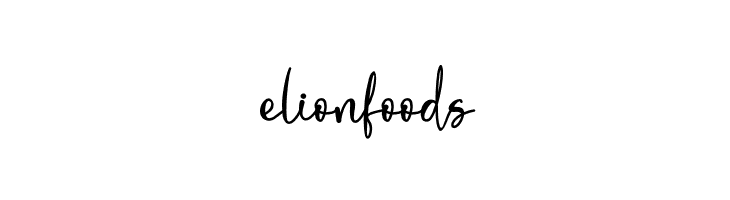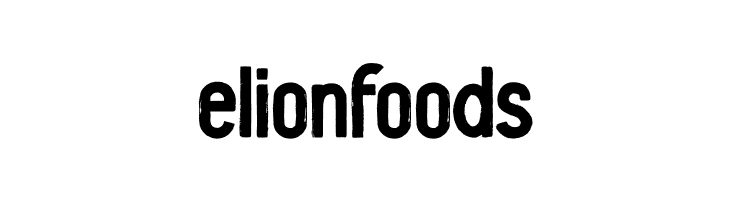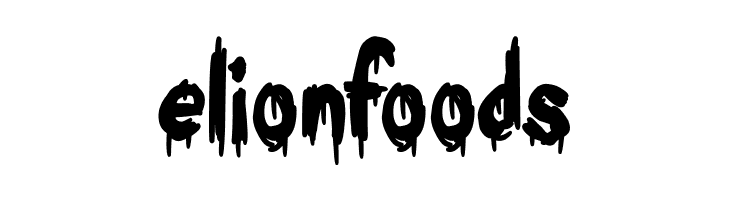
• Big Ruckus AOE
A playful, hand-drawn font with irregular strokes and a lively appearance.
• Big Samurai
A bold, angular font with a modern twist on traditional Japanese aesthetics.
• BIG_GIPSY_BRO
A bold, geometric font with a modern, stencil-like design.
• BigAppleNF
A bold, modern font with high contrast and geometric shapes.
• BigBrotherClassizism
A bold, high-contrast serif font with a decorative boxed style.
• Bigmall
A playful, handwritten font with tall, narrow uppercase letters and smooth strokes.
• BigMummy
A bold, high-contrast font perfect for impactful headlines and logos.
• BigNoodleTitling
A bold, condensed font with a geometric, modern style.
• BigNoodleTitling Oblique
A bold, oblique font with a modern and dynamic style.
• BigParty
A bold, distressed font with a grunge texture, ideal for edgy designs.
• BigShadows
A bold, three-dimensional font with deep shadows for a dramatic effect.
• BigShadowsLeftOblique
A bold, 3D shadow font with a left-leaning dynamic style.
• billieBarred 06
• BillieBarred06
A bold, hand-drawn font with dynamic and expressive strokes.
• Biloner
A bold, hand-drawn font with rugged, organic strokes.
• Biolina Larasita - Personal Use
A playful and elegant handwritten font with decorative loops and smooth curves.
• BIOSI
• BirdsInfluenced
A decorative font inspired by intricate bird motifs with artistic and detailed designs.
• BirdsNPlants
Ornate dingbat font with plant and bird motifs.
• Biro Script
• Bistecca
A modern serif font with tall, narrow letterforms and high contrast strokes.
• Bitink
A bold, geometric font with a modern and clean aesthetic.